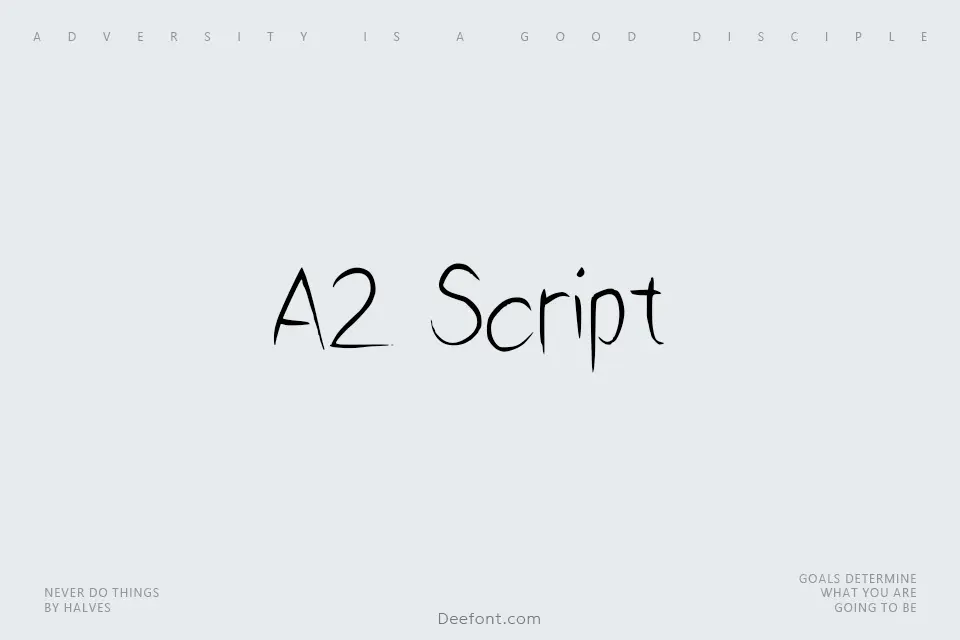
A2 Script Font
A2 Script is a whimsical handwritten script typeface featuring flowing, organic letterforms with a natural hand-drawn quality. This artistic font combines elegant strokes with playful character, making it ideal for creative headlines, poster designs, invitation cards, and decorative display work. The letters possess an authentic handwritten appearance that adds personality and charm to design projects, particularly excelling in artistic contexts, greeting cards, and contemporary creative applications where warmth and personal touch matter most.
Designed by:Matěj Hofman